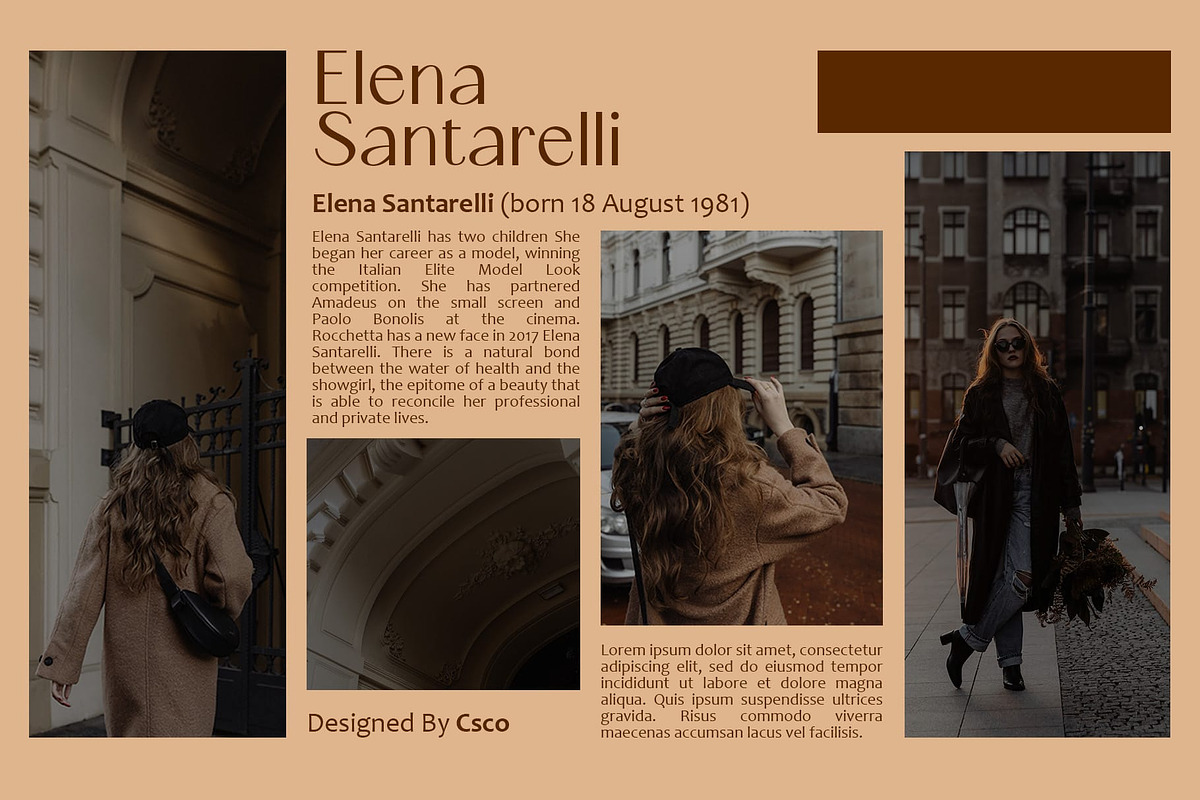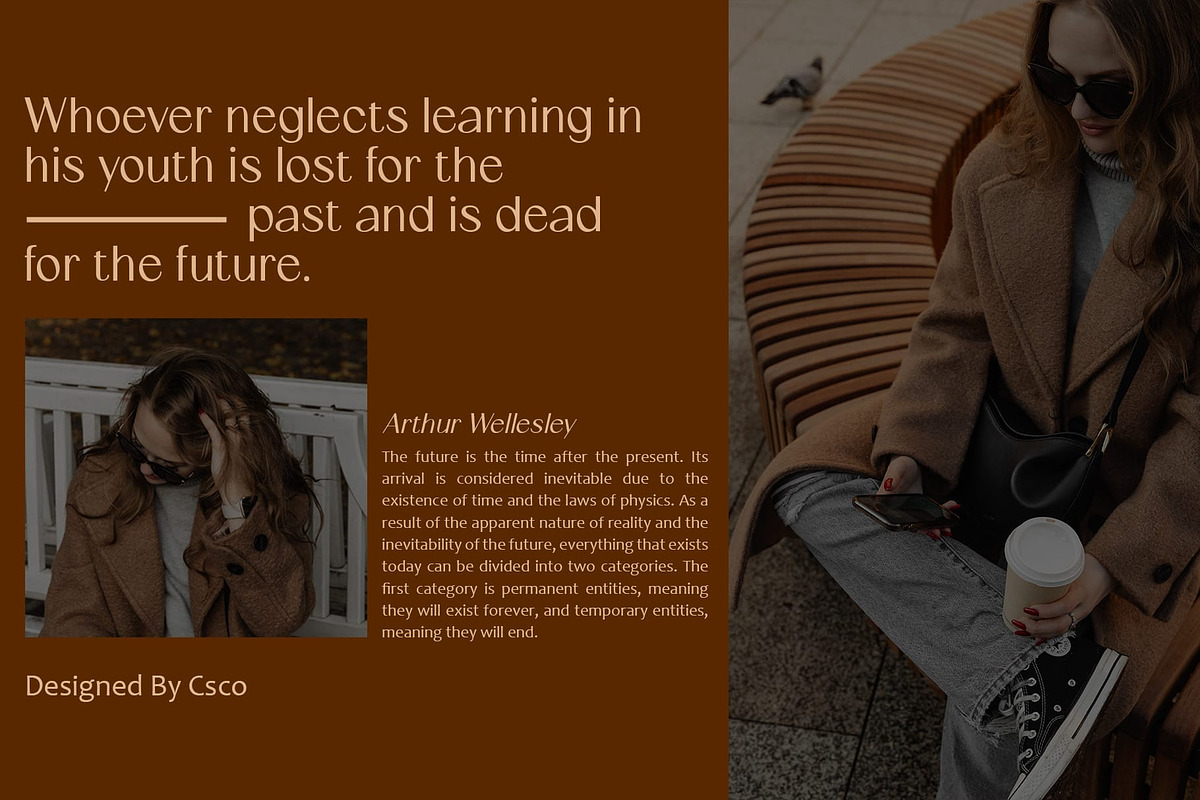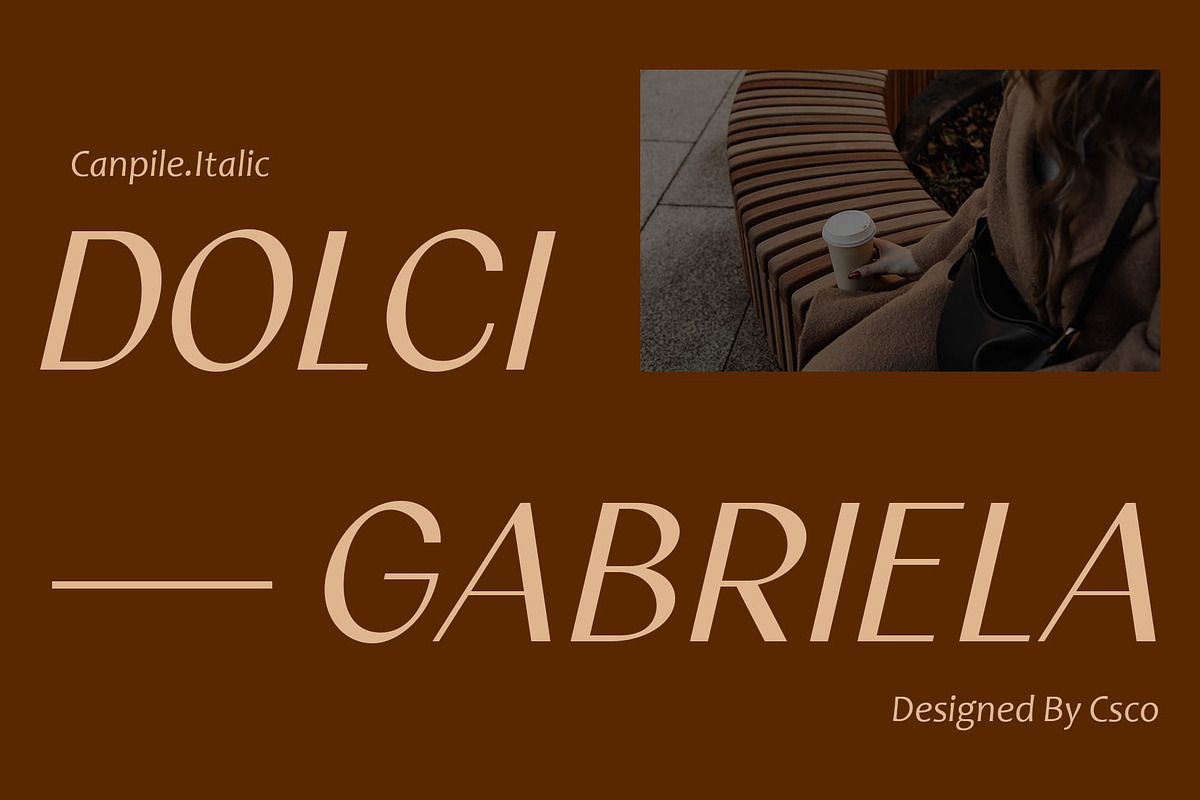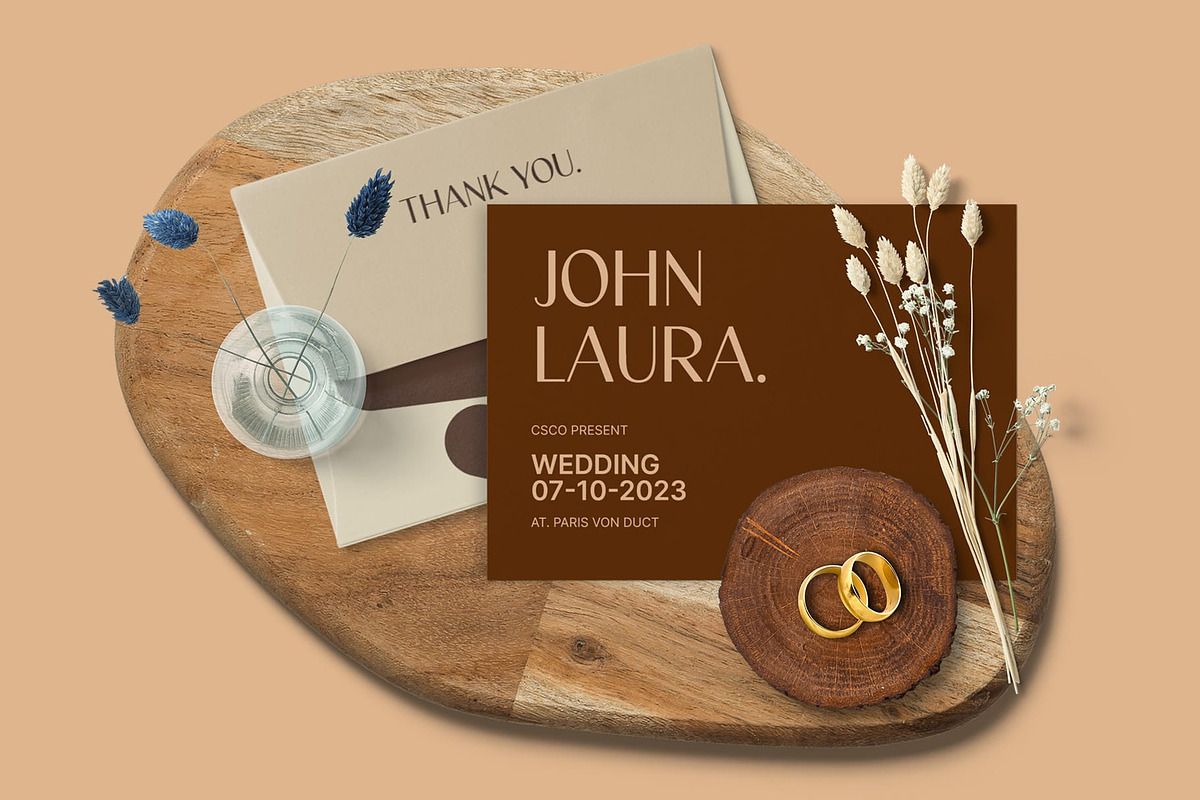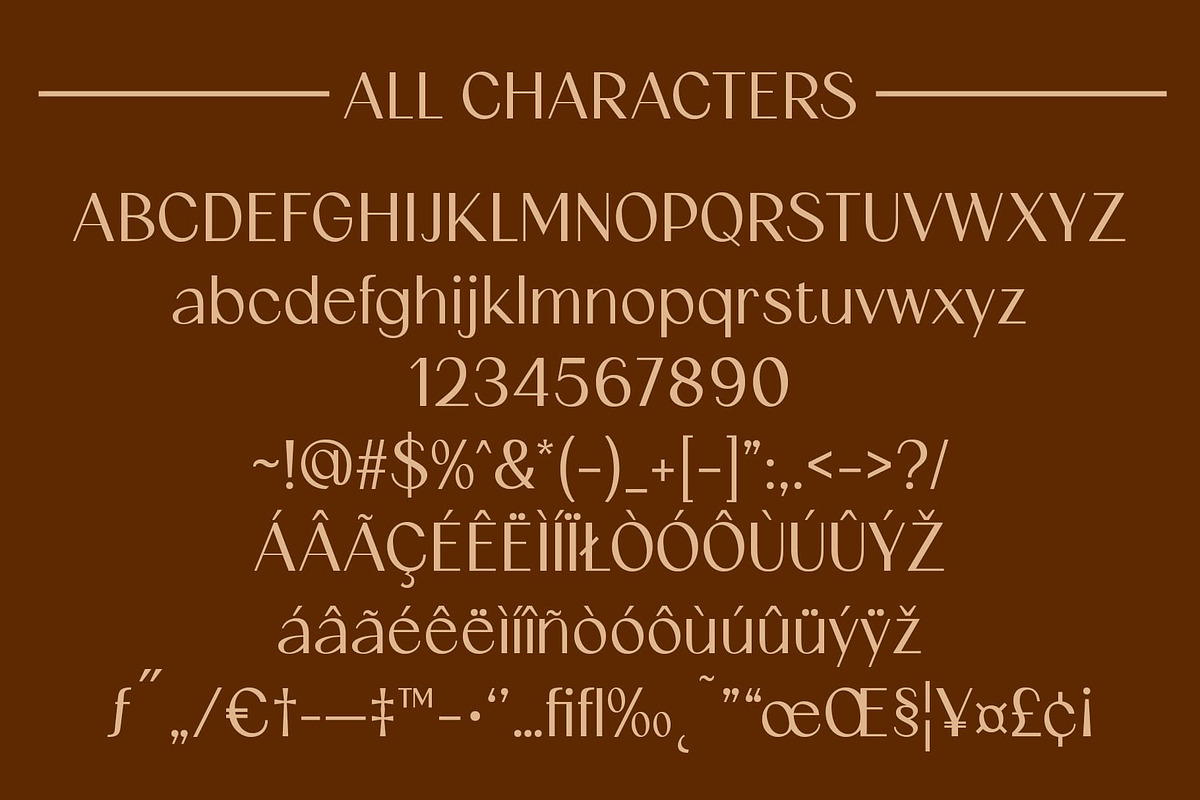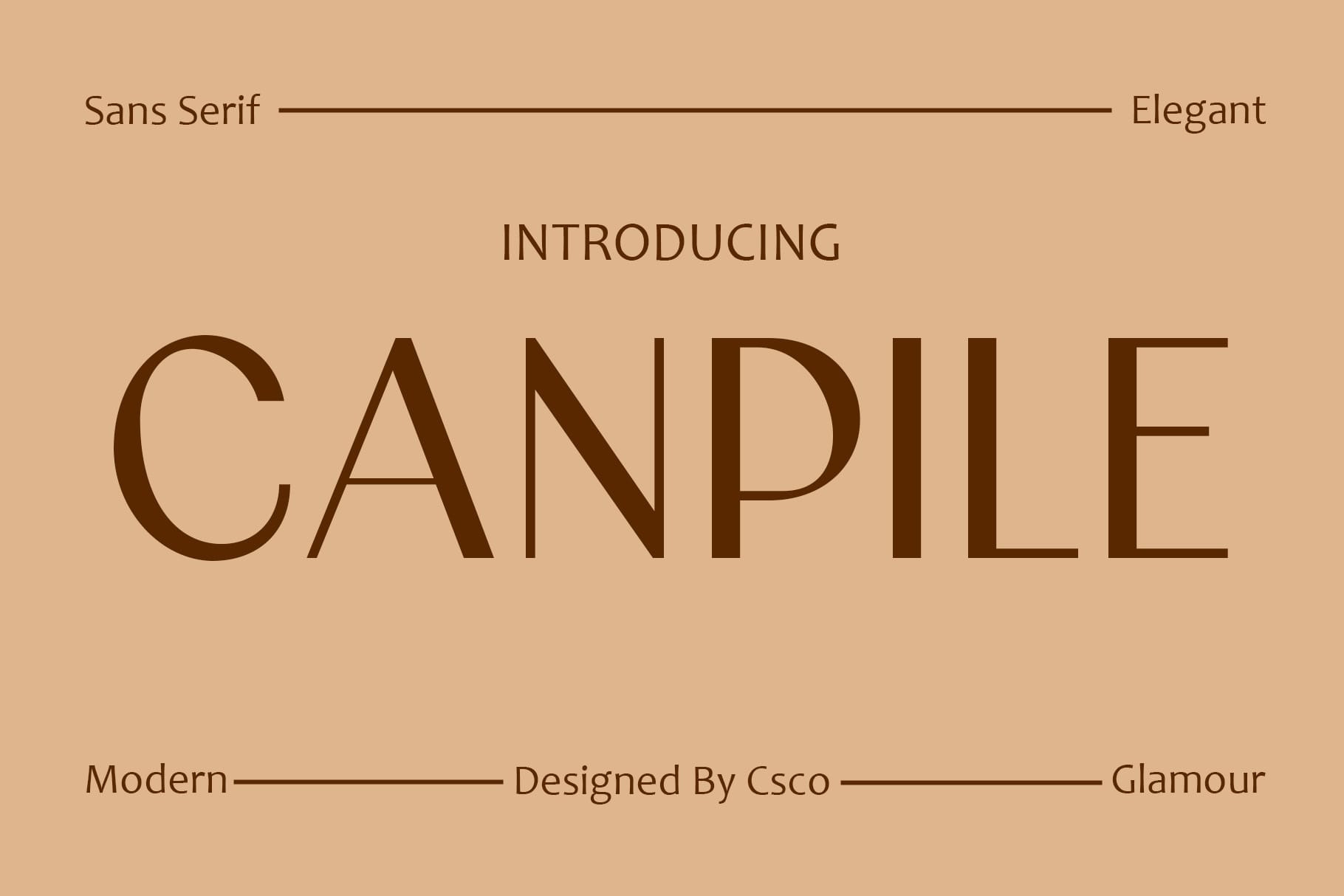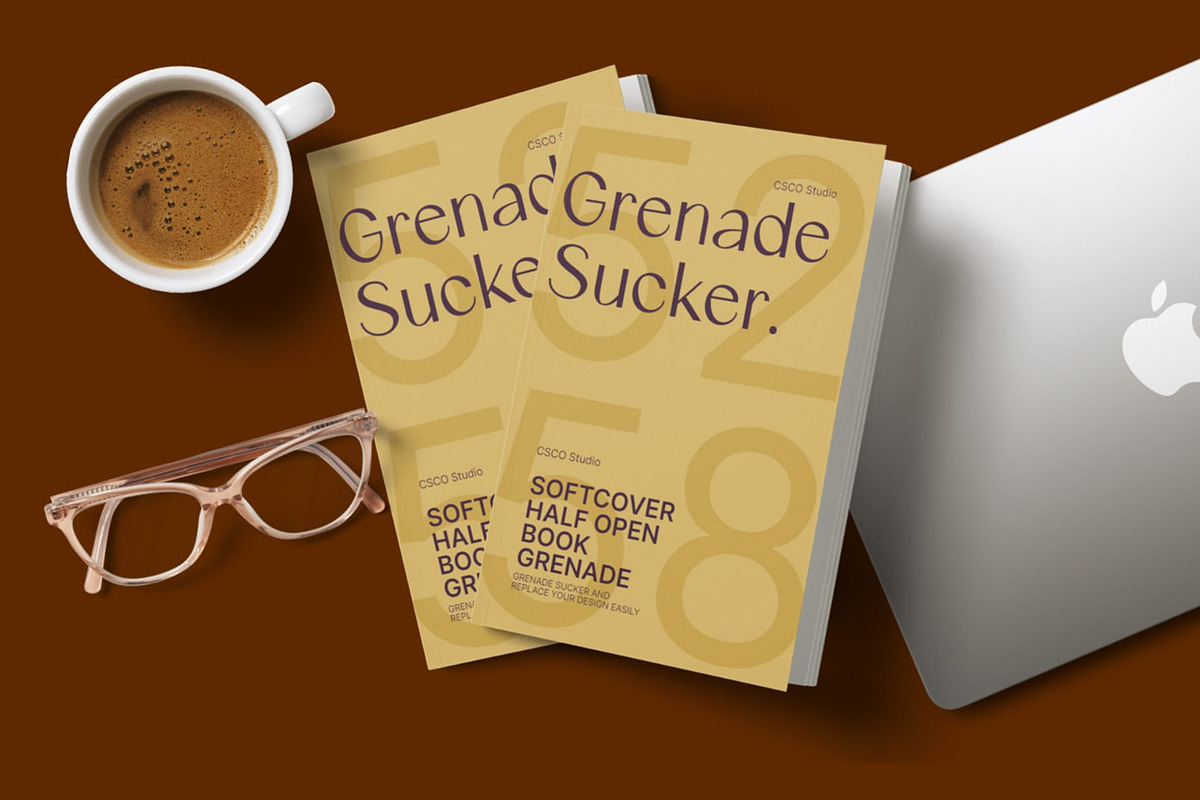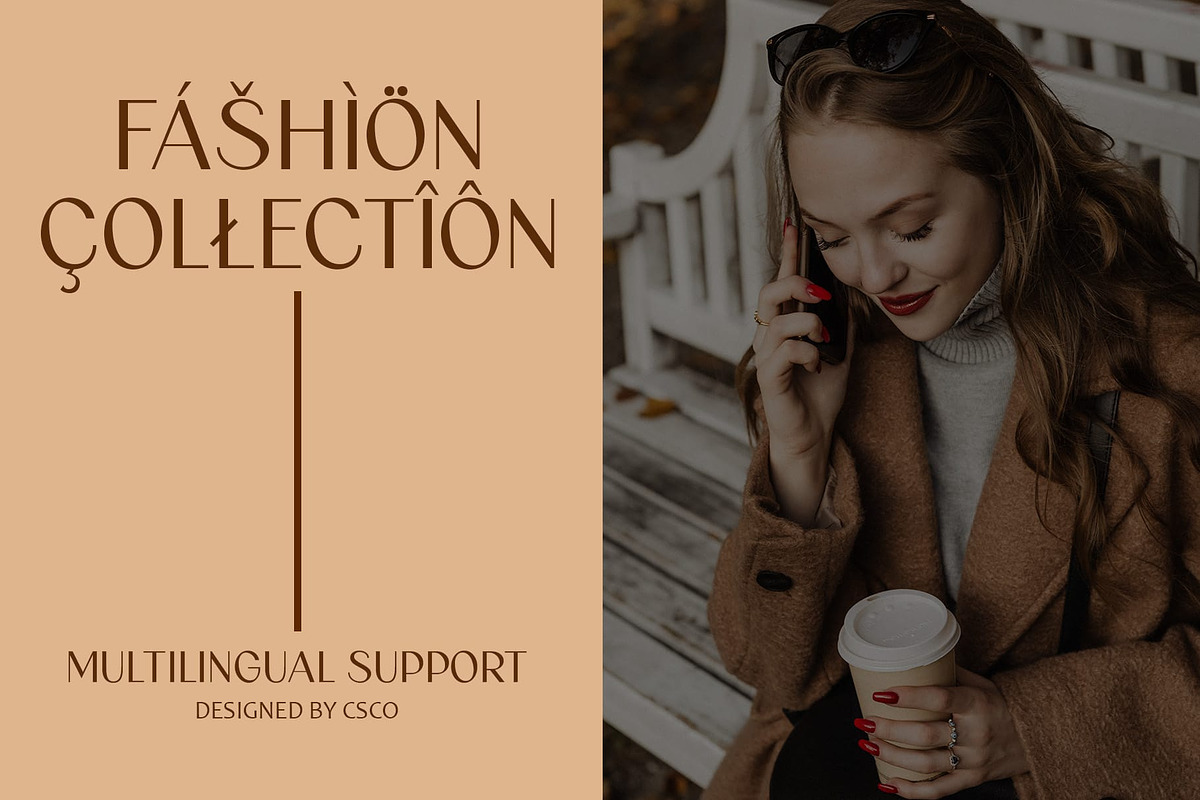
Canpile – Modern Font
Canpile Font: A Modern Marvel of Typography
Stylish Simplicity Canpile, a beacon of modernity, combines sans serif simplicity and style, establishing itself as a go-to choice for contemporary editorial design.
Versatility Unleashed From editorial layouts to diverse applications, Canpile effortlessly adapts, proving its versatility in delivering a stylish punch to any design project.
Elevate Your Designs The modernity embedded in Canpile elevates your designs, infusing them with a touch of sophistication that captures attention and exudes professionalism.
Editorial Excellence Canpile’s sleek and structured design makes it the epitome of editorial excellence, ensuring your content is presented with clarity, class, and modern appeal.
Conclusion Canpile isn’t just a font; it’s a design companion. With its modern aesthetics, versatility, and editorial prowess, Canpile transforms every project into a masterpiece of contemporary elegance. Explore the endless possibilities of modern typography with Canpile.
Features : Uppercase and lowercase characters Numerals and Punctuation (OpenType Standard) Accents (Supports Multilingual Characters) PUA Encoding You can use this typeface without needing any specialized software.